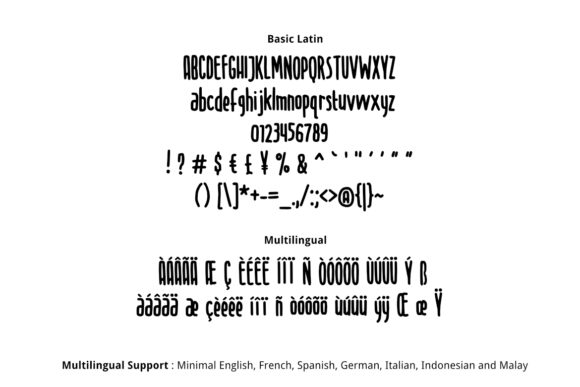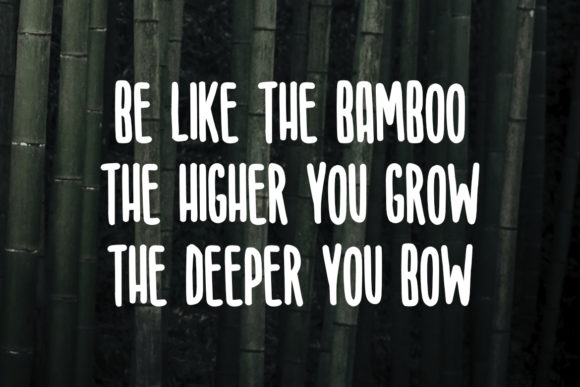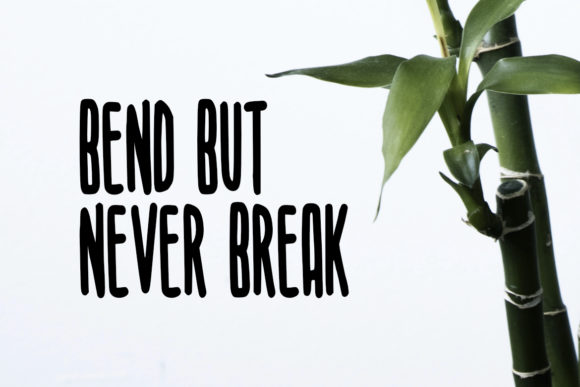
The Perfect Font for Eye-Catching Designs: Angklung Font
Have you ever been in a design session, staring at a blank page, trying to come up with the perfect font to convey your message? You’ve tried bold, you’ve tried cursive, but nothing seems to fit quite right. That’s when you stumbled upon the perfect solution – the Angklung Font.
Angklung Font is a simple and tall lettered sans serif font designed to make your designs stand out. Its clean lines and minimalist aesthetic make it the perfect choice for creating eye-catching logos, branding, and quotes. Whether you’re a seasoned designer or just starting out, Angklung Font is a valuable addition to your toolkit.
Angklung Font Key Features
- Font Family: Angklung, with a total of 3 font styles (Regular, Bold, Italic) and 2 font weights (Regular, Bold)
- Character Set: Supports a wide range of languages, including Latin, Cyrillic, Greek, and various Southeast Asian languages
- Unique Characteristic: Angklung Font is designed to resemble the traditional Angklung instrument from Indonesia, with distinctive strokes and curves that evoke the musical instrument’s shape and feel
Angklung Font Review
Overall, I found the Angklung Font to be a unique and visually appealing addition to any design project. ✨ Its eclectic and playful feel makes it perfect for adding a touch of personality to your work.
Here are some aspects where the Angklung Font truly shines:
- ✨ **Unique Character Set**: The font’s character set is a great blend of traditional and modern elements, making it stand out from more generic fonts.
- ✨ **Customizability**: Angklung Font offers a range of weights and styles to choose from, allowing designers to tailor the font to their specific needs.
- ✨ **Cross-Platform Compatibility**: I didn’t encounter any issues using the font on different platforms, ensuring seamless integration with various design software.
- ⚠️ **Limited Kerning**: I noticed that the font’s kerning could be improved, particularly at smaller font sizes, which may affect readability.
- ⚠️ **Limited Support**: While the font’s character set is extensive, it may not cover all languages or characters, which could be a concern for international projects.
Overall, I would recommend the Angklung Font to designers looking for a distinctive and versatile font for their projects. While it may have some limitations, its unique character set and customizability make it a valuable addition to any design toolkit.
The Angklung Font is ideal for:
- Cultural and traditional designs
- Music and arts-related projects
- International and multicultural events
Alternatives to Angklung Font
1. Noto Sans Thai
Noto Sans Thai is a modern sans-serif font designed for Thai language. It’s suitable for digital platforms, including websites, apps, and documents. Noto Sans Thai is a more formal and professional font compared to Angklung Font, which is more playful and energetic.
Lato is a sans-serif font designed by Łukasz Dziedzic. It’s a clean and modern font suitable for various design projects, including logos, websites, and mobile apps. Lato is more versatile than Angklung Font, which is specifically designed for Thai language. However, Lato lacks the cultural significance and uniqueness of Angklung Font.
3. Khmer OS System
Khmer OS System is a sans-serif font designed for the Khmer language. It’s a highly legible font suitable for digital platforms, including websites, apps, and documents. Khmer OS System is similar to Angklung Font in terms of its cultural significance and modern design. However, it’s more focused on the Khmer language, while Angklung Font is designed for Thai language.